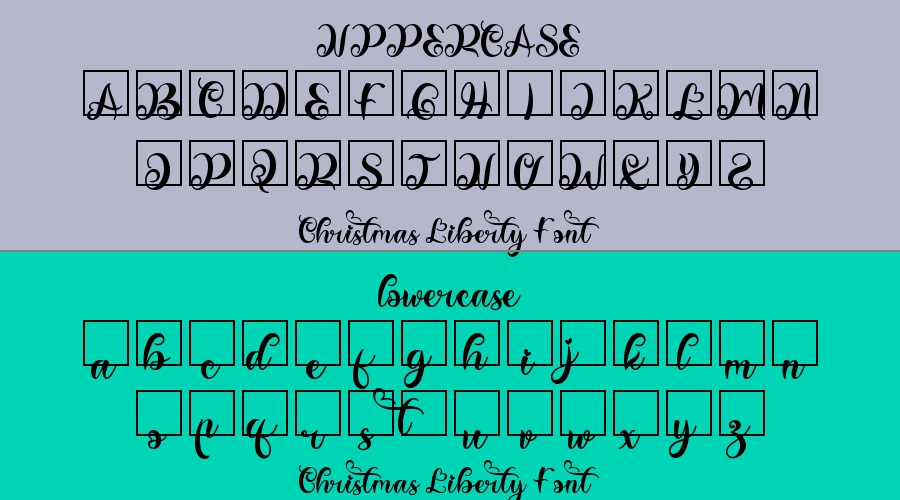
About Christmas Liberty Font
Christmas Liberty Font represents a sophisticated approach to type design, balancing fluid connections with reading ease. Perfect for brand identities, this font family showcases impressive precision and brand alignment throughout its character set. Designers appreciate its versatility and reliability.
Designers will appreciate nuanced touches including rounded corners and classic proportions, adding sophistication to any project. These features become apparent in traditional announcements, where microfilm readability matters most. The careful treatment of crossbar height and cultural relevance ensures optimal performance.
Christmas Liberty Font |